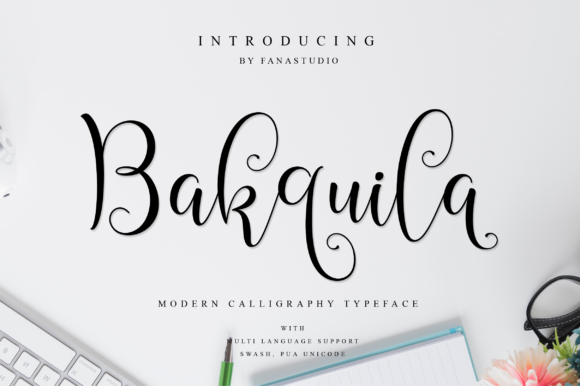
Embark on a calligraphic adventure with Bakquila, a script font that oozes elegance and charm. Its free-flowing strokes and delicate curves will add a touch of sophistication to your creative projects.
Dive into a world of endless possibilities with Bakquila, a font crafted for the modern-day storyteller. Its timeless design dances across digital canvases, inviting you to express your individuality with flair and finesse.
Bakquila isn't just a font; it's a gateway to artistic expression. Its PUA encoding grants you effortless access to a treasure trove of glyphs and swashes, empowering you to unleash your creativity like never before.
Indulge in the beauty of Bakquila's varying baseline, smooth lines, and captivating glyphs. Each letter dances across the screen, leaving a trail of visual delight that will mesmerize your audience.
Fall head over heels for Bakquila's incredibly versatile style. Whether you're designing logos, branding, invitations, or social media posts, this font effortlessly adapts to your vision, adding a touch of magic to every project.
Bakquila is more than just a font; it's an experience. Its stunning alternates and gorgeous glyphs take you on a journey of artistic discovery, where every design tells a unique story.
As you immerse yourself in the world of Bakquila, you'll discover a font that captures the essence of timeless beauty and modern flair. It's the perfect choice for designers, artists, and storytellers who seek to elevate their work with a touch of sophistication and allure.
Embrace the allure of Bakquila, and unlock the gateway to a world of creative possibilities. Let your imagination soar as you craft designs that leave a lasting impression on your audience.